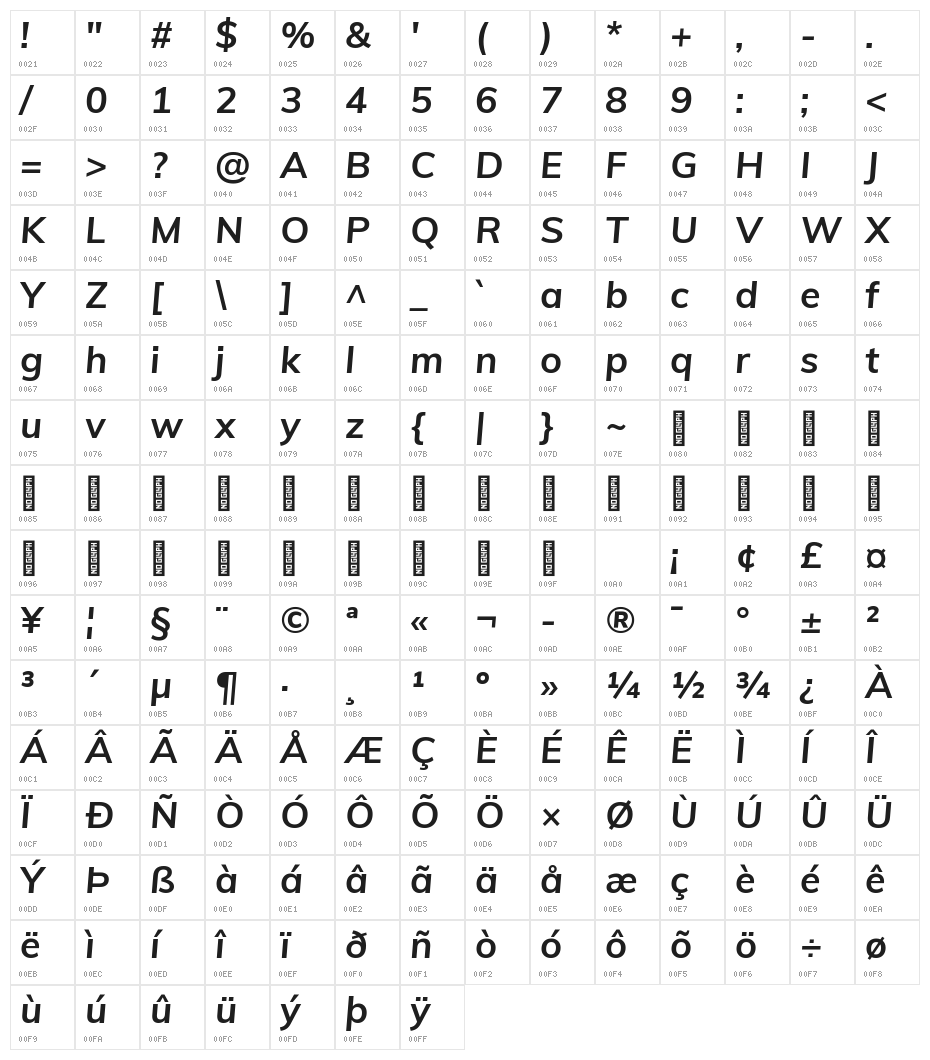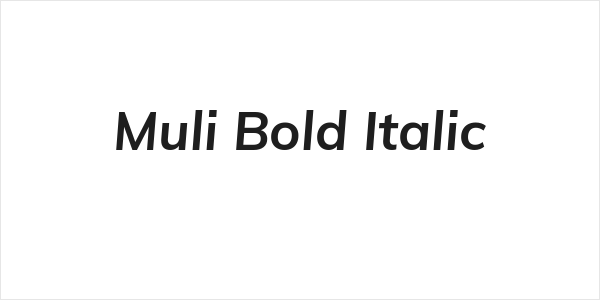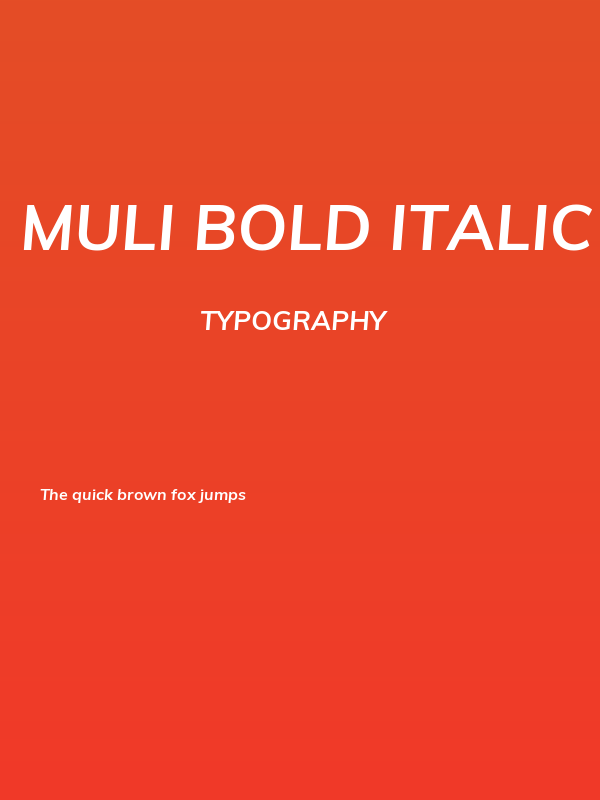
Muli Bold Italic Font
Muli Bold Italic Description
This font presents a clean and modern aesthetic with a slight slant, giving it an italicized appearance. The bold weight enhances its visibility and impact, making it suitable for attention-grabbing text. The characters are well-proportioned with a consistent stroke width, contributing to its legibility. The sans-serif style adds to its contemporary feel, while the smooth curves and straight lines provide a balanced and harmonious look. The font maintains a normal width, ensuring versatility across various applications. Its character spacing is normal, allowing for easy readability without appearing cramped or overly spaced.
| Use Case | Headlines, Logos, Digital content |
| Proposed Projects | Ideal for branding, advertising, headlines, and digital content where a modern and bold statement is needed. |